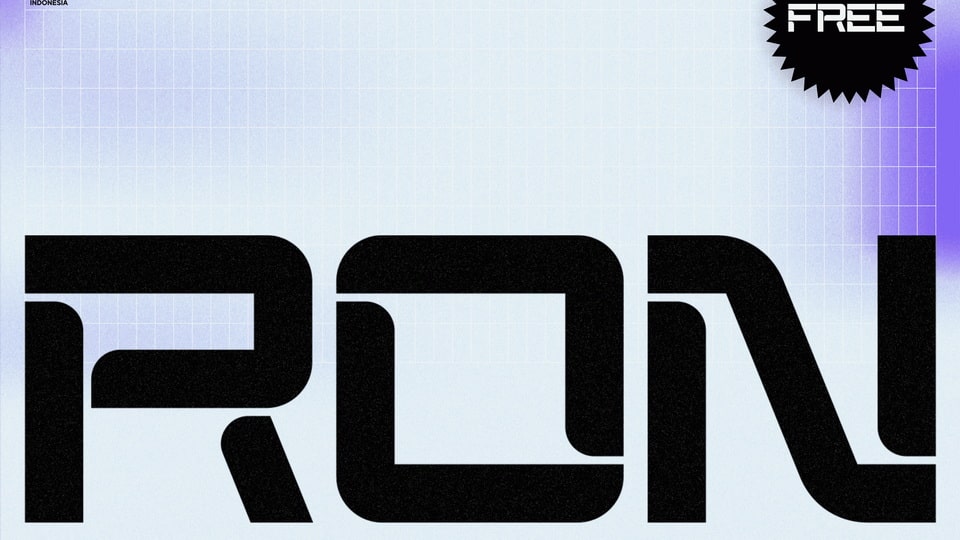
Download RON font, a futuristic modern typeface inspired by electric vehicles. Ron font is well suited for use in the tech and gaming space for logos, titles, packaging, web design, apps and much more.
Designer: Bagerich Type Foundry